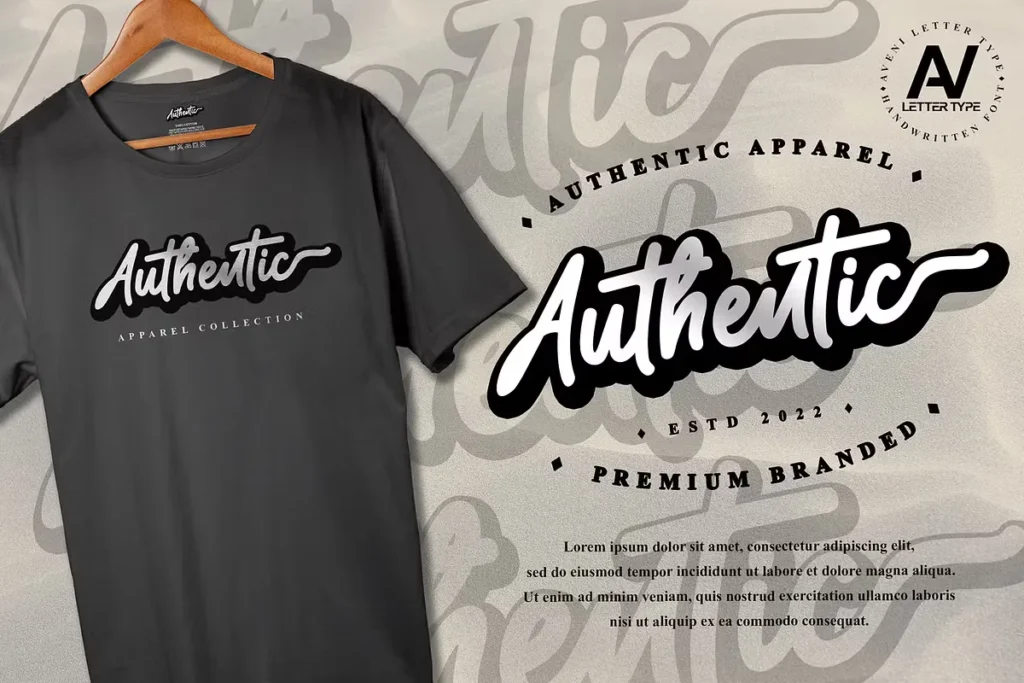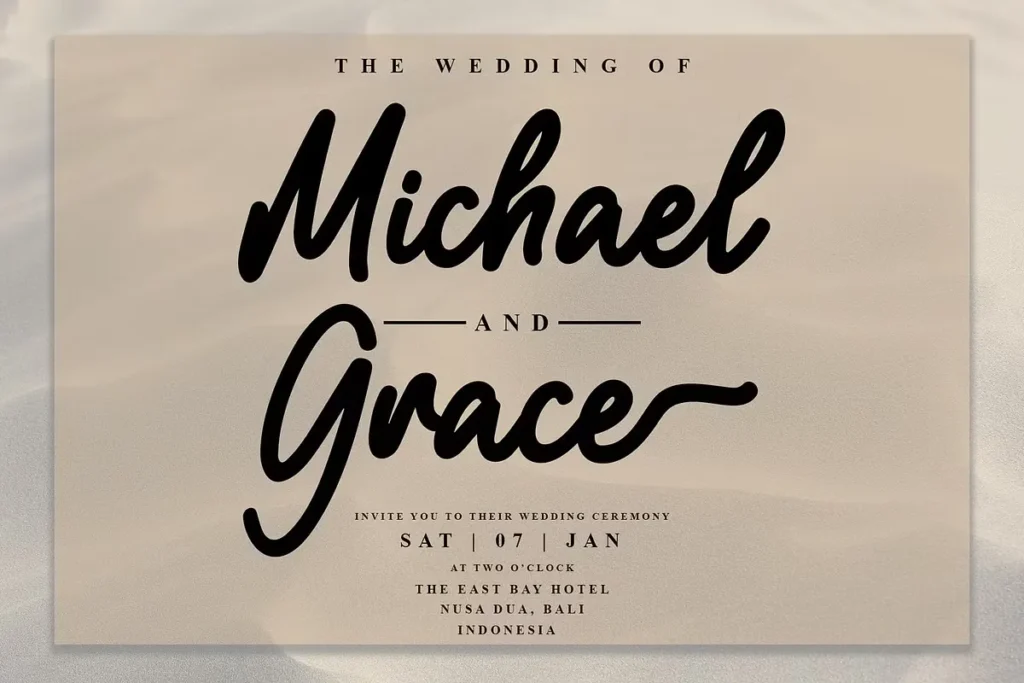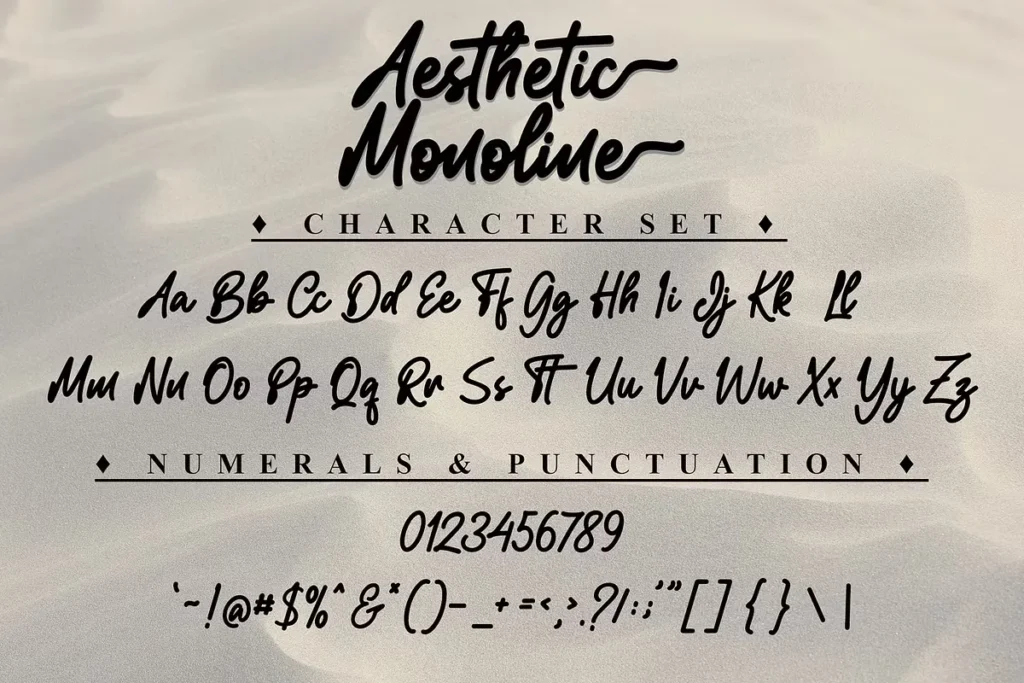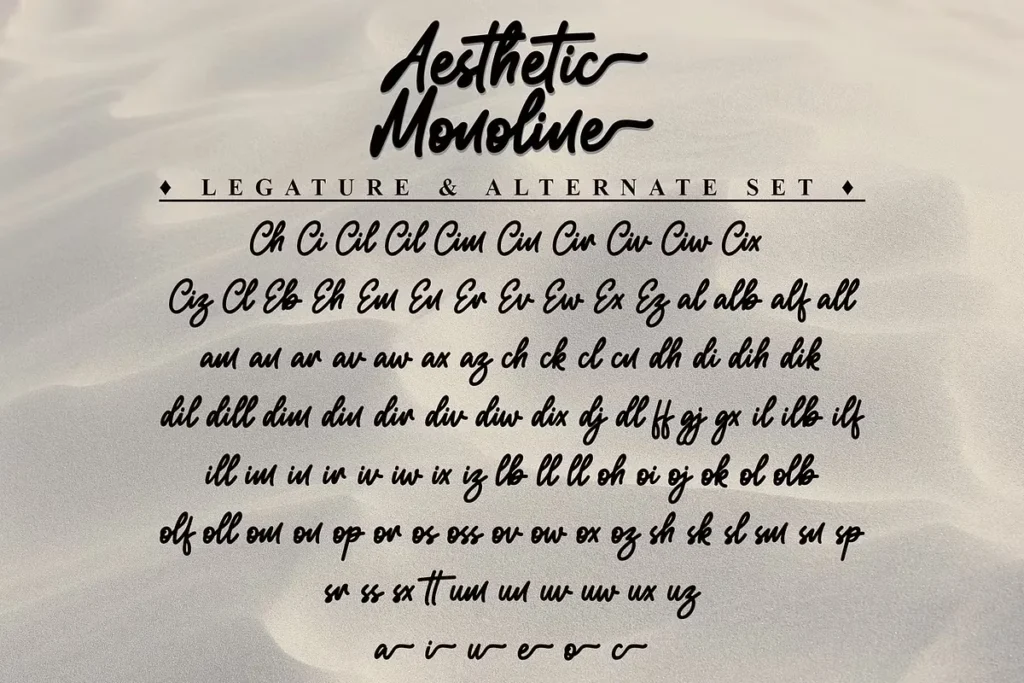
Free Aesthetic Monoline Handwritten Font Download
Aesthetic Monoline is a beautiful handwritten font that combines the elegance of monoline lettering with clean, modern styling. Designed with neat kerning and smooth strokes, this font delivers a sophisticated and professional look while maintaining the charm of natural handwriting. Its versatile design makes it an excellent choice for a wide range of creative and branding projects.
Whether you’re designing wedding invitations, business cards, cosmetic packaging, fashion labels, tote bags, product packaging, social media graphics, posters, greeting cards, or custom merchandise, Aesthetic Monoline adds a refined and stylish touch to every design. The font features uppercase and lowercase letters, numerals, punctuation marks, ligatures, and alternate characters, giving designers greater flexibility and creativity.
If you’re looking for a modern, feminine, elegant, and versatile handwritten font, Aesthetic Monoline is a perfect addition to your font collection and creative toolkit.